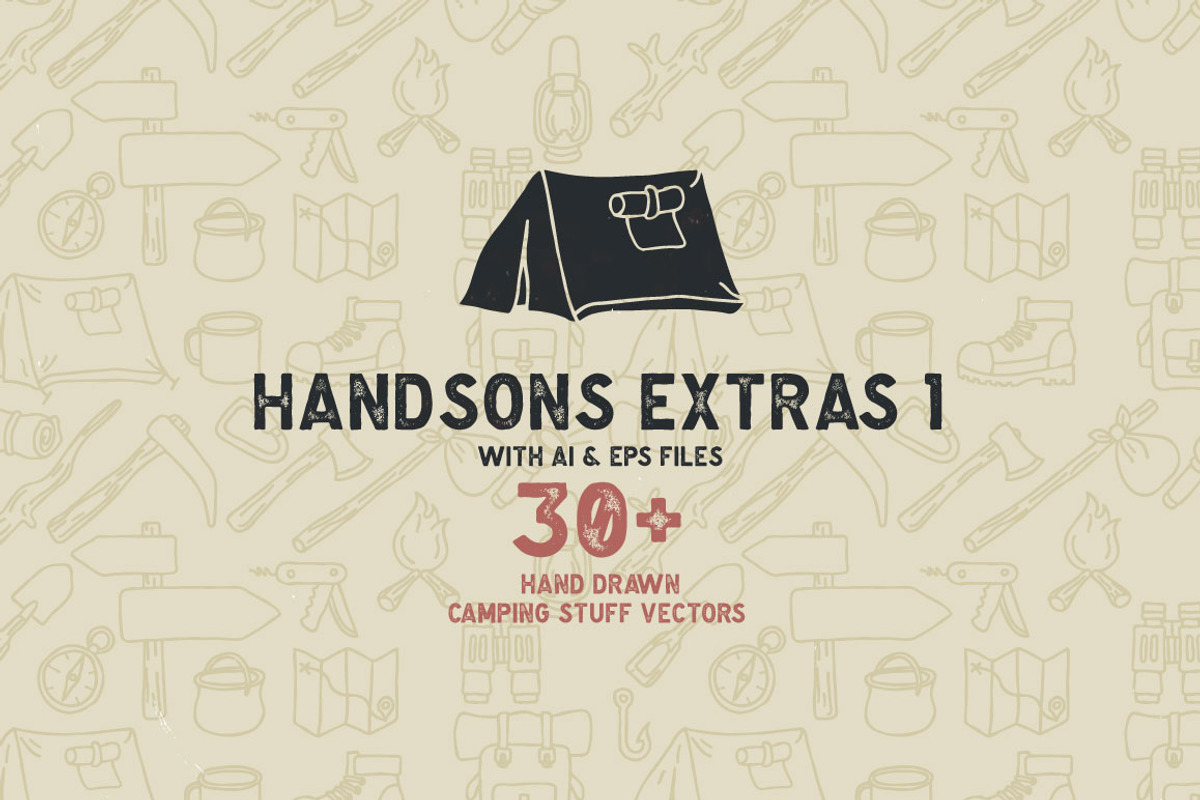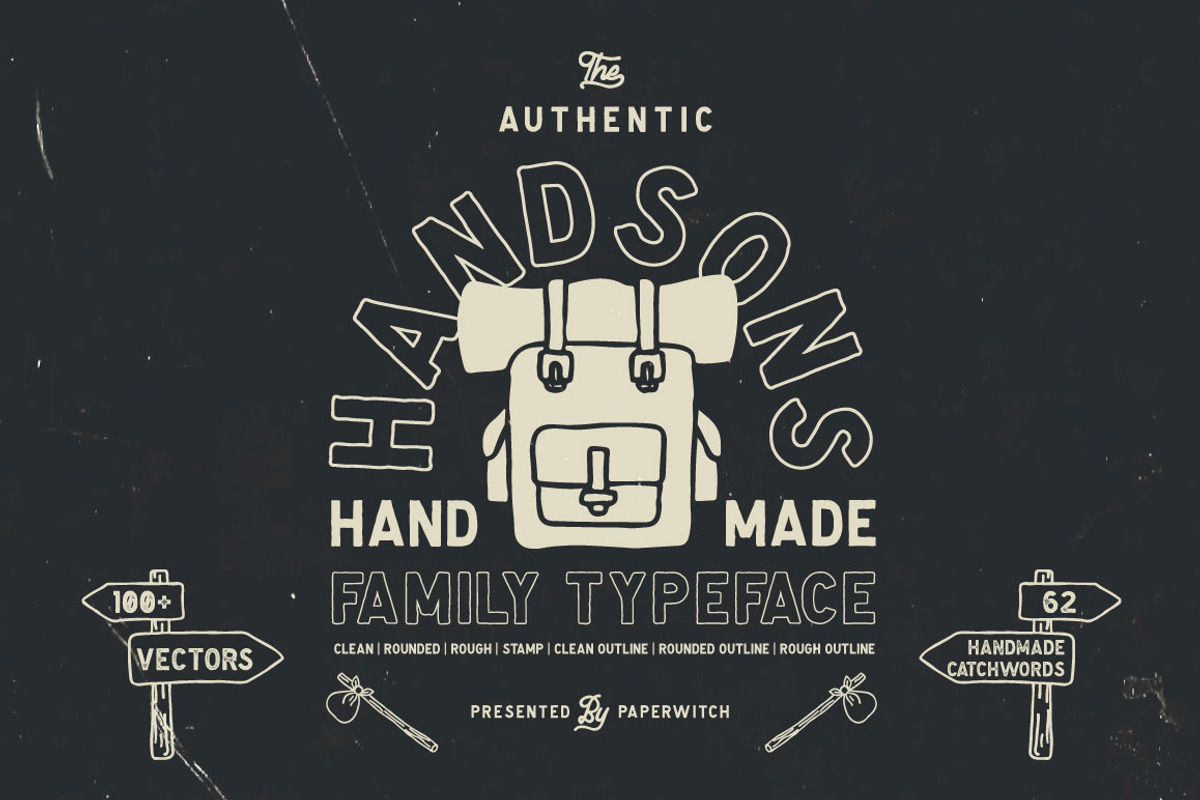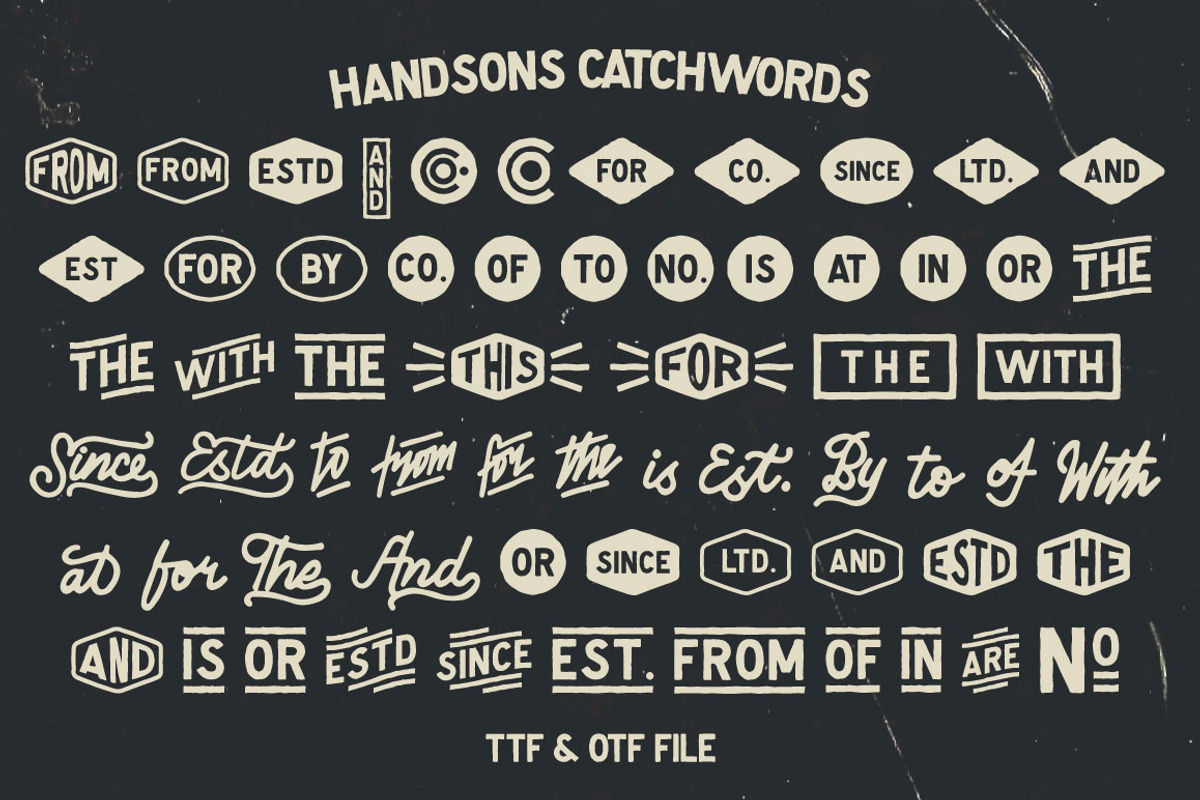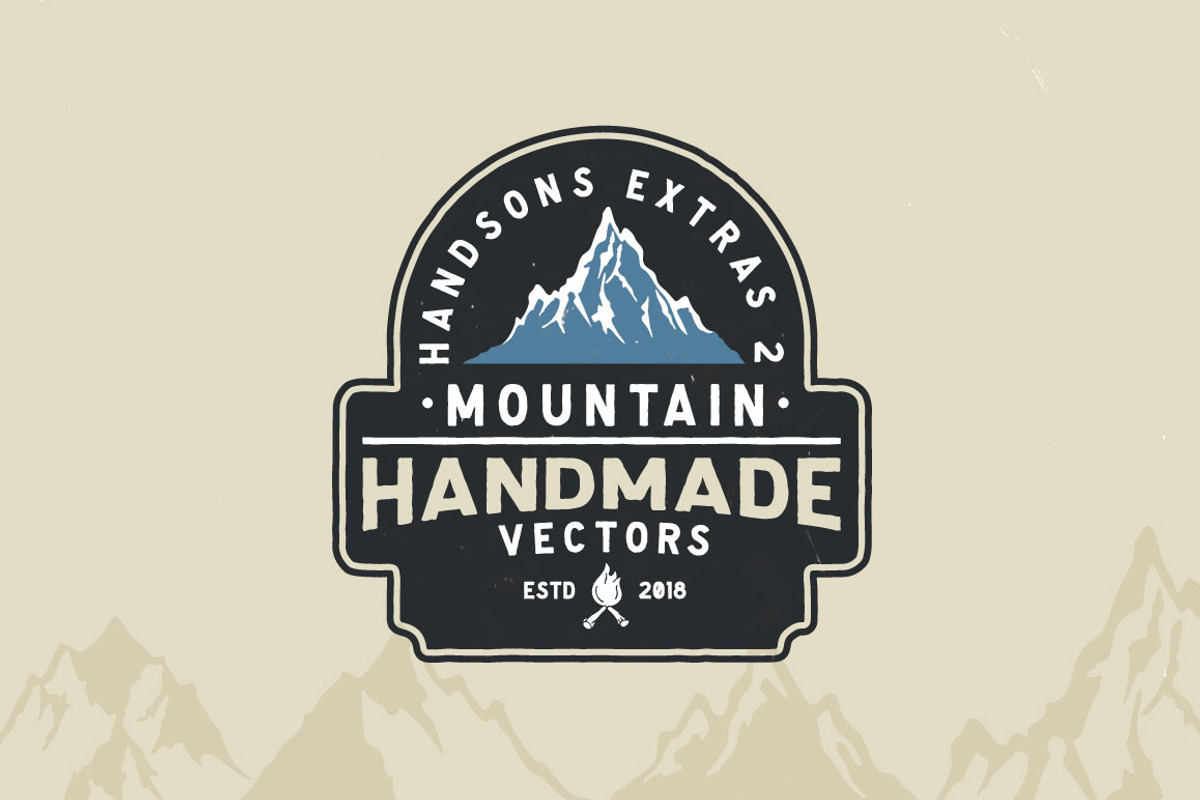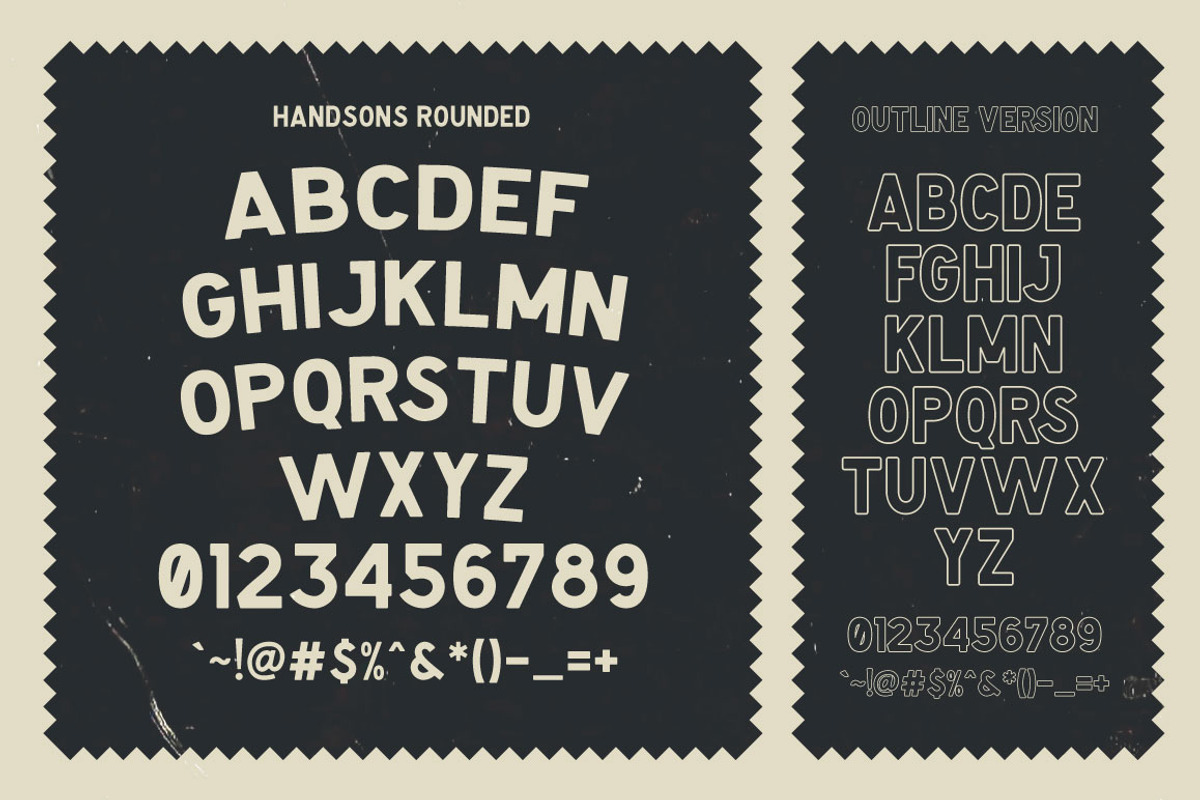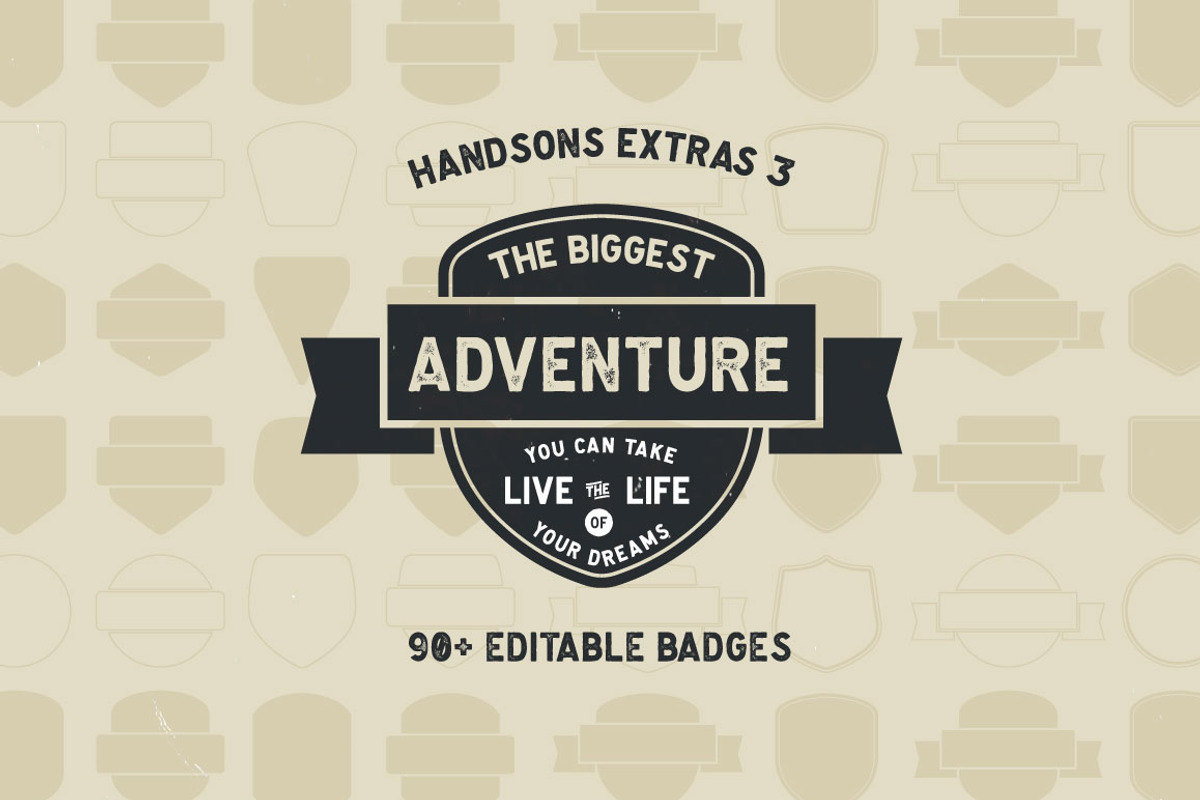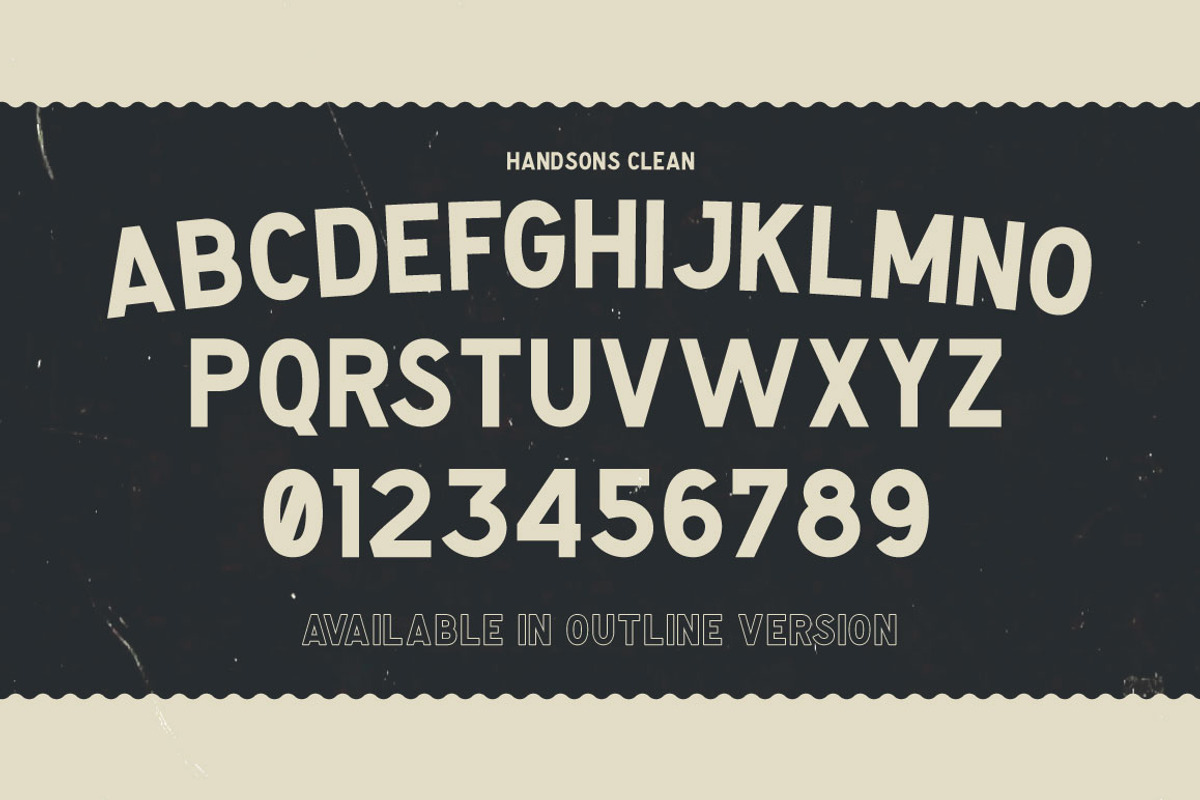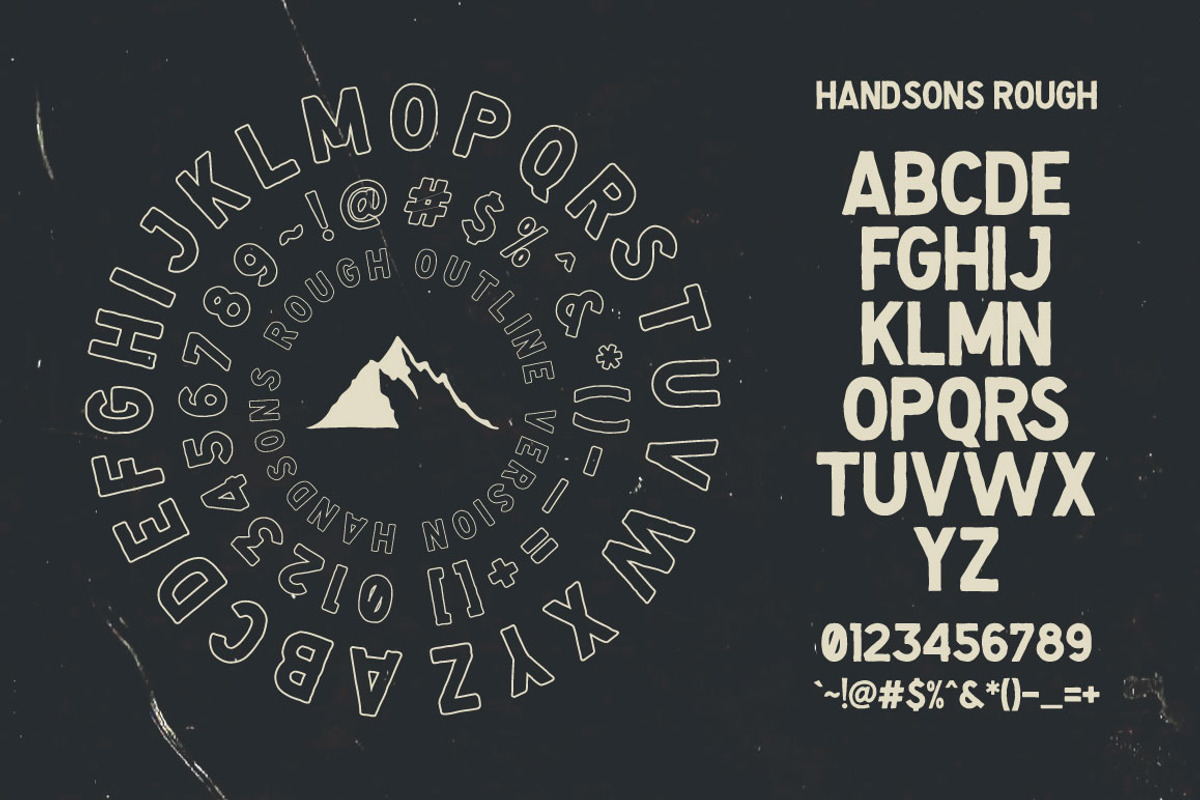
Handsons Typeface
Handsons Typeface is a family font consisting of 7 versions. This font has a strong character, so it can be used for design that requires high readability. Posters, Labels, Book Title, and more, are perfect for using this font.
In this font, you will get 100 more bonus vector packs and catchwords: